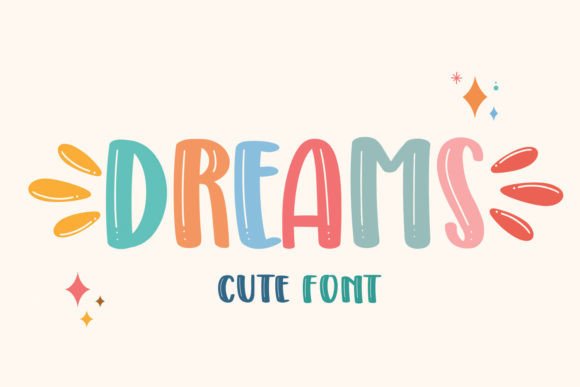
Introducing Dreams Font, the ultimate choice for those seeking a Font for Script Writing that will truly captivate and inspire. Created by Mozatype, this delightful and whimsical typeface is here to bring your designs to life.
Are you ready to embark on a creative journey filled with joy and playfulness? Dreams Font is your ticket to a world of endless possibilities. With its unique and captivating style, this font captures the essence of cute displays and quirky designs, making it a must-have for any creative project.
Whether you're working on a spring-themed invitation, an autumn-inspired poster, or a holiday greeting card, Dreams Font is the perfect companion. Its versatility shines through as it effortlessly adapts to various occasions and themes. Let your imagination run wild as you explore the potential of this font for New Year's celebrations, crafting endeavors, or even embroidery projects.
What sets Dreams Font apart is its ability to evoke emotions and create a connection with your audience. Its charm and whimsy bring a touch of magic to your designs, instantly capturing attention and leaving a lasting impression. Each letter and character has been carefully crafted to convey a sense of joy, making every word a celebration of creativity.
With Dreams Font, your message will resonate with your target audience on a deeper level. Its playful nature invites curiosity and engagement, ensuring that your designs stand out from the crowd. Whether you're promoting a product, sharing a story, or simply expressing yourself, this font adds that extra spark of personality that will leave your viewers wanting more.
Don't let your designs go unnoticed. Let Dreams Font be the secret ingredient that elevates your creations to new heights. Unleash your imagination and let this font guide you towards stunning and eye-catching visuals that leave a lasting impression.